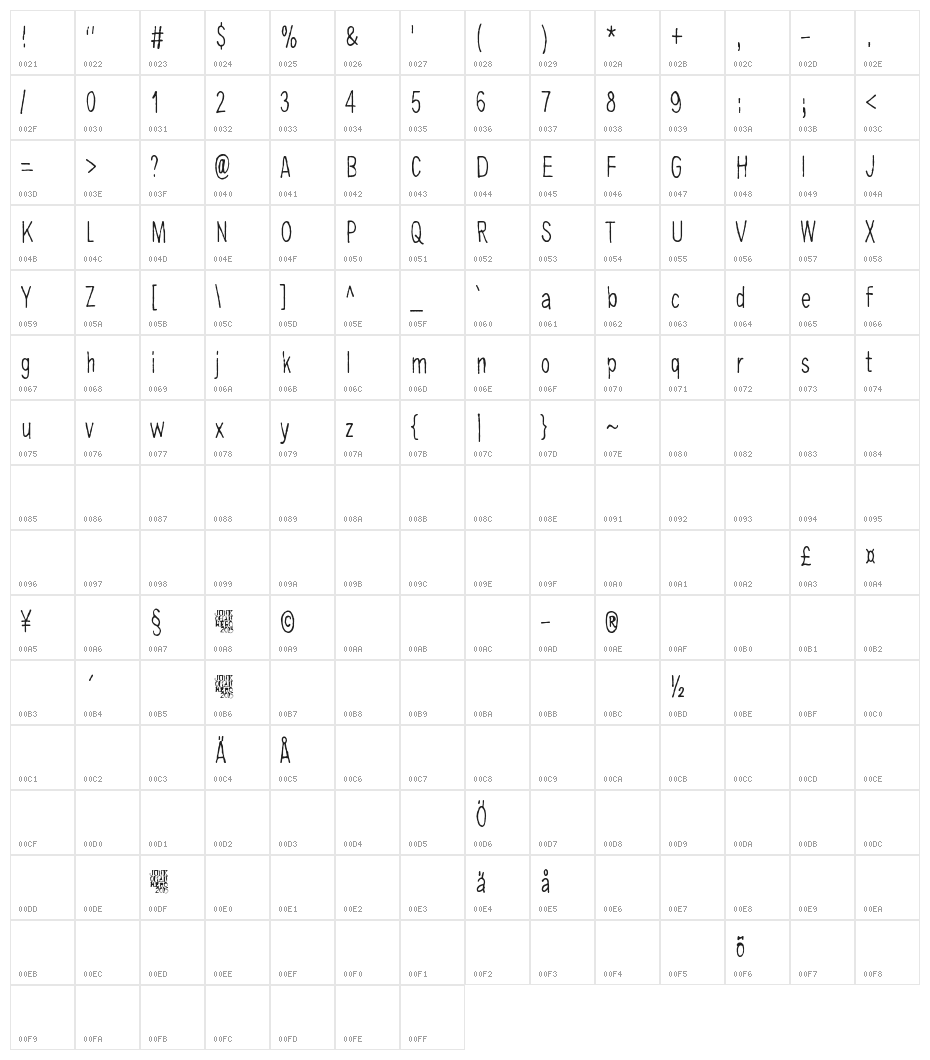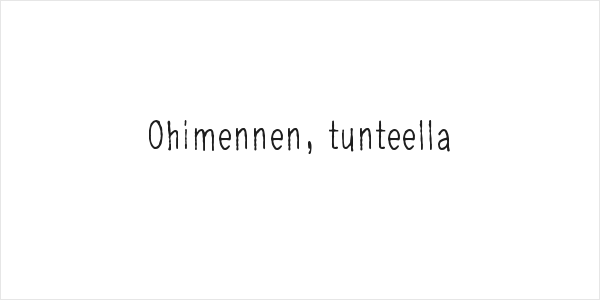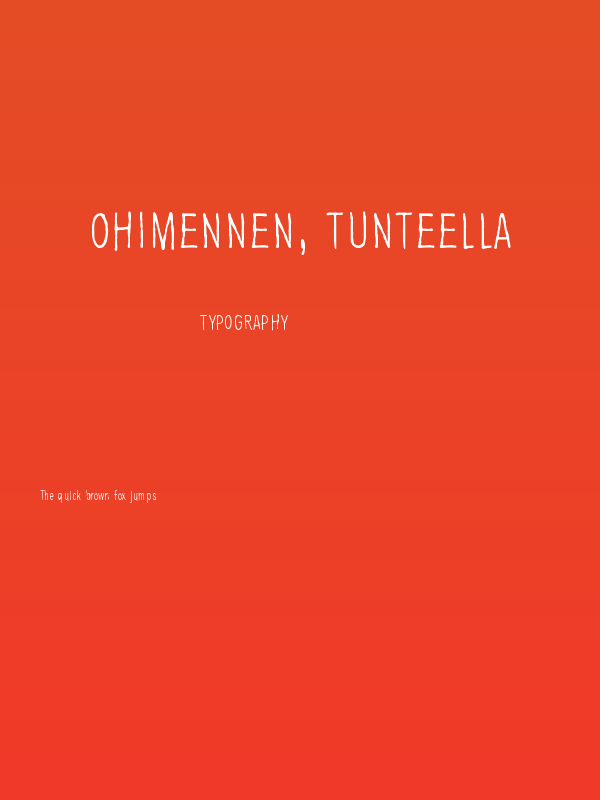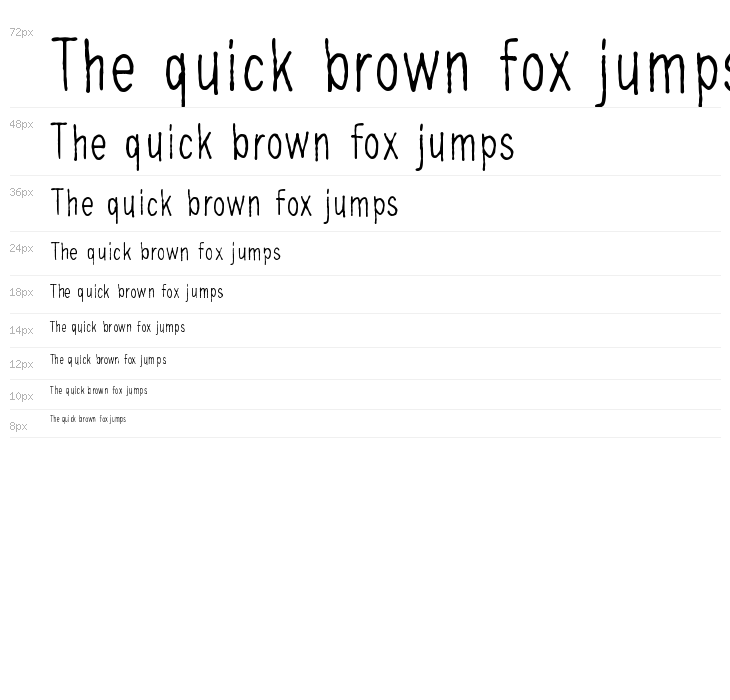
Ohimennen, tunteella Font
Ohimennen, tunteella Description
This font features a hand-drawn, organic style with slightly irregular strokes that give it a casual and approachable feel. The characters are tall and narrow, with a consistent line weight that maintains readability while adding a touch of whimsy. The uppercase and lowercase letters are well-proportioned, and the numbers follow the same aesthetic, ensuring uniformity across different text elements. The special characters complement the overall design, making it versatile for various applications. Its playful yet legible nature makes it suitable for projects that require a personal touch.
| Use Case | Logos, Headlines, Informal text |
| Proposed Projects | Ideal for greeting cards, children's books, casual branding, and social media graphics. |